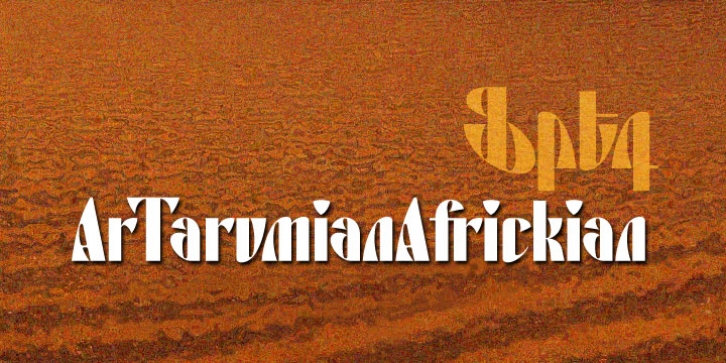
The influence for this font came from the Fred Africian’s uppercase letter composition shapes, published in "The Art of Letter-type" album, Yerevan, 1984.